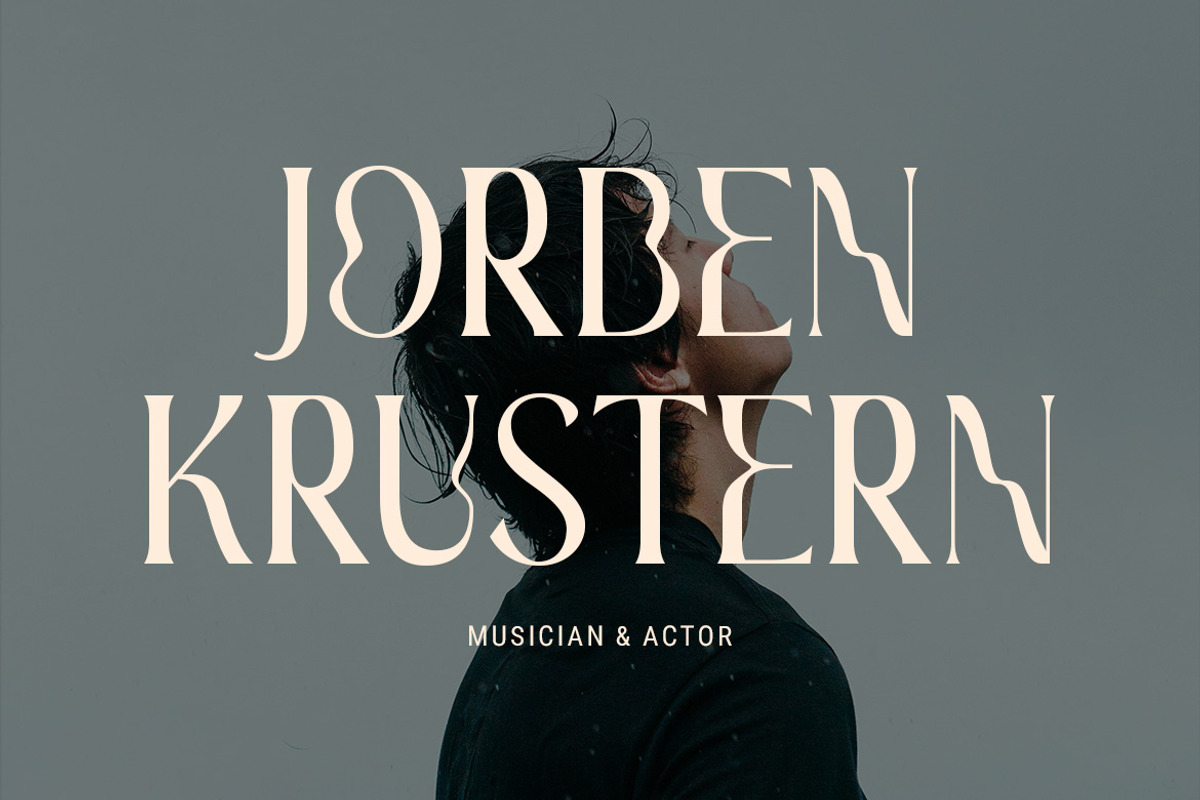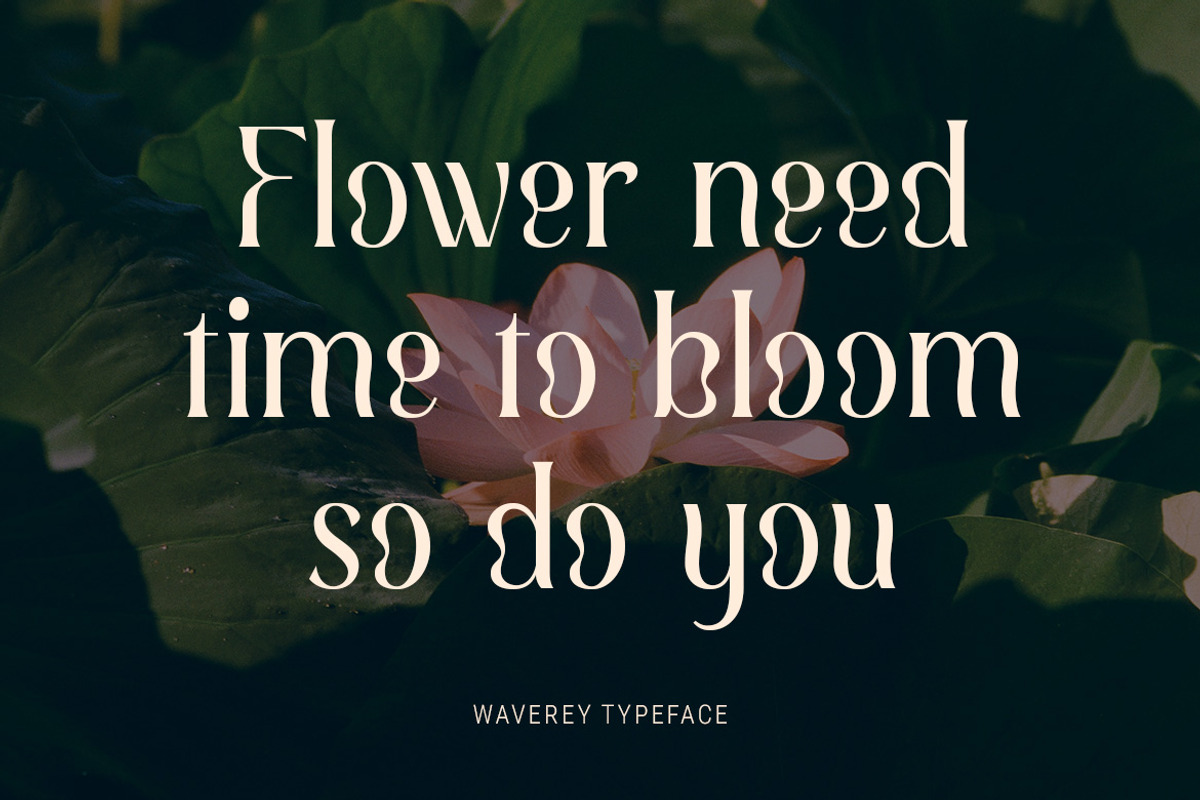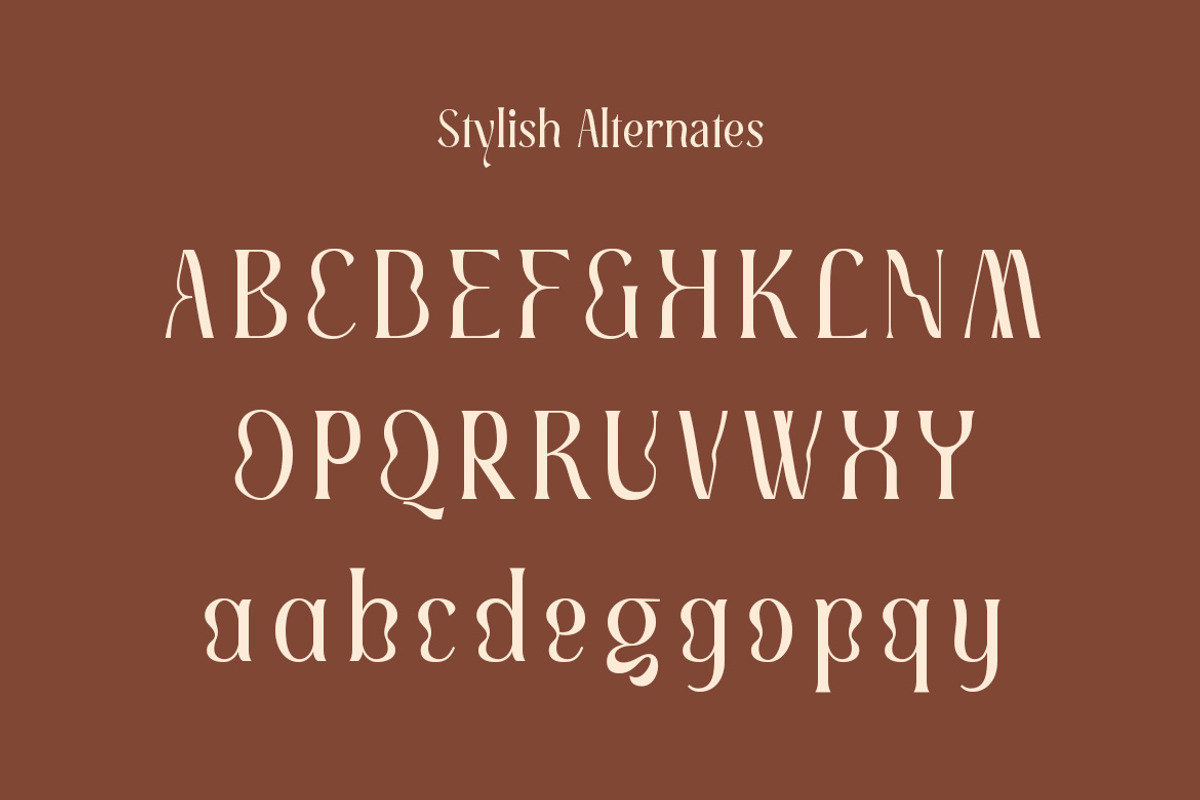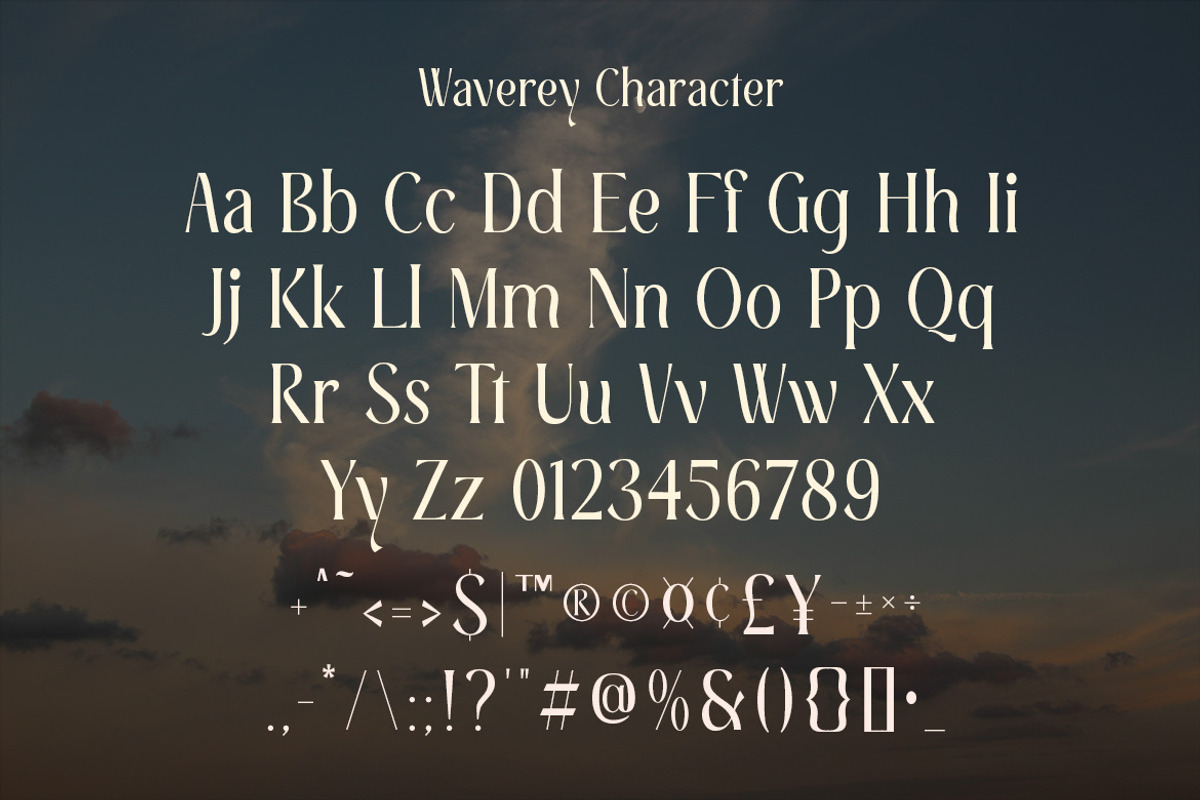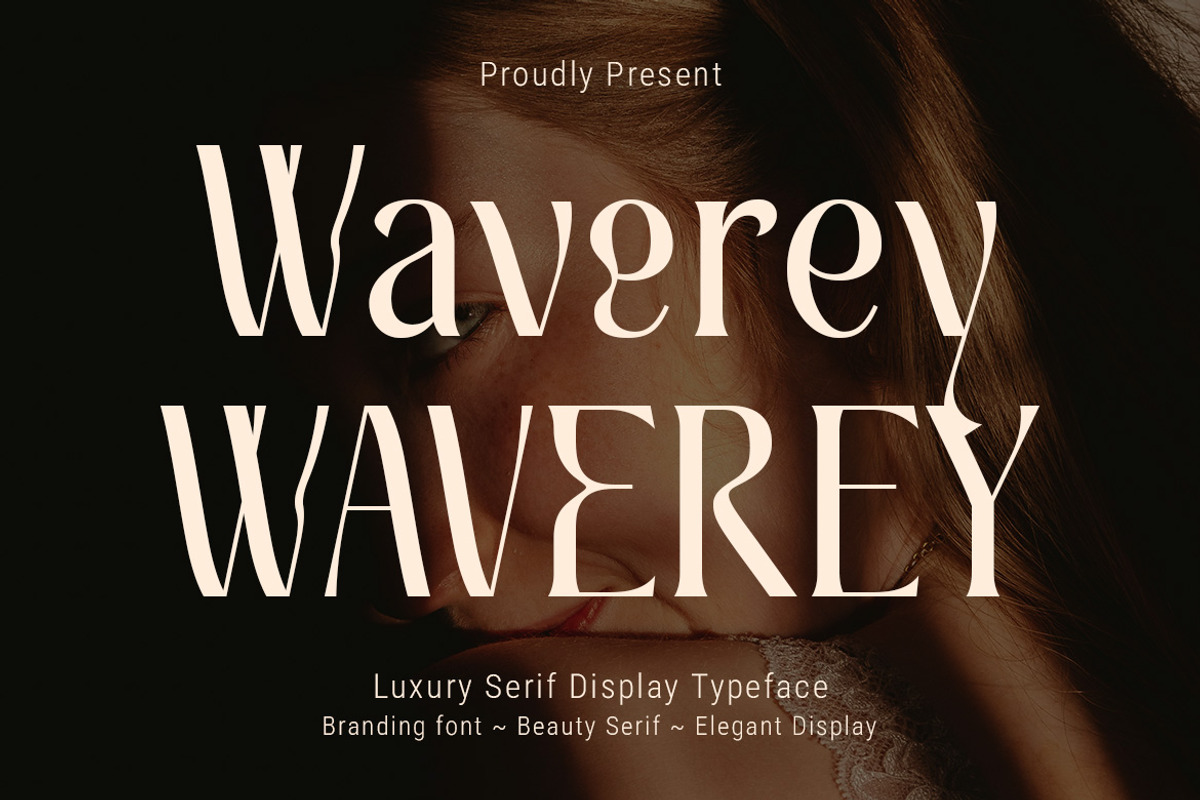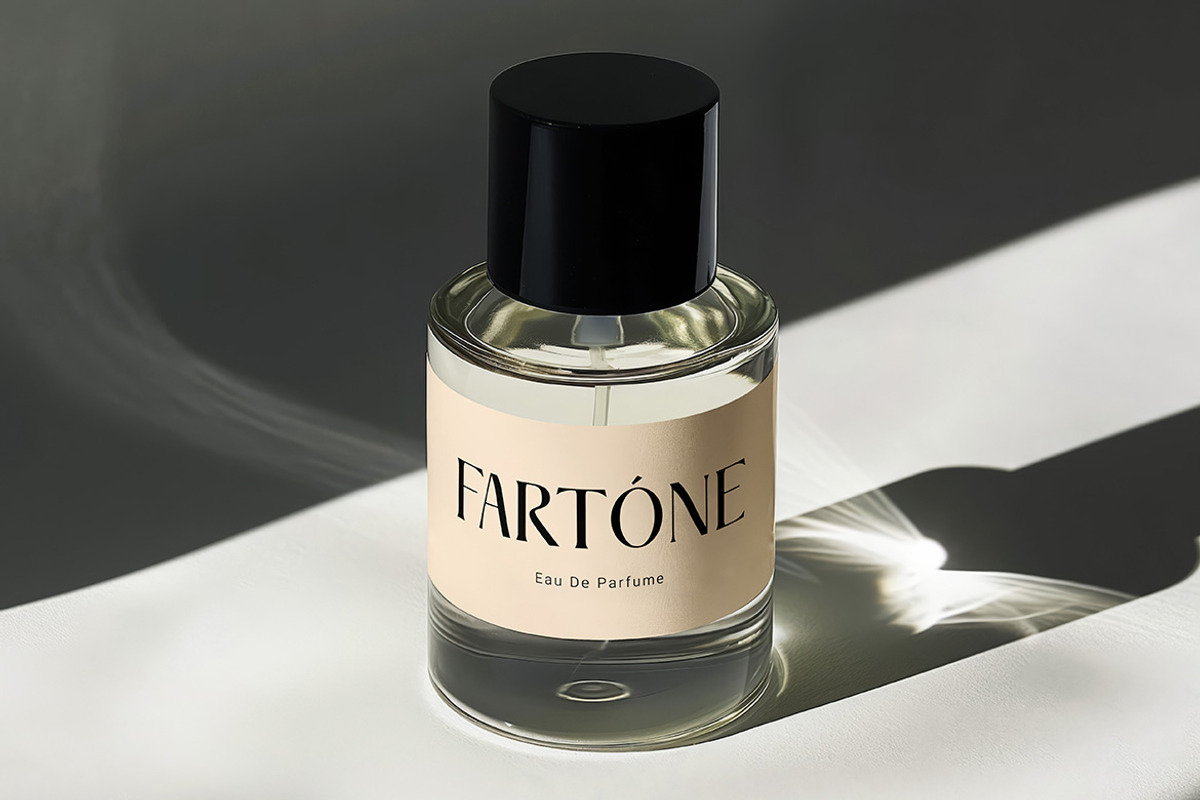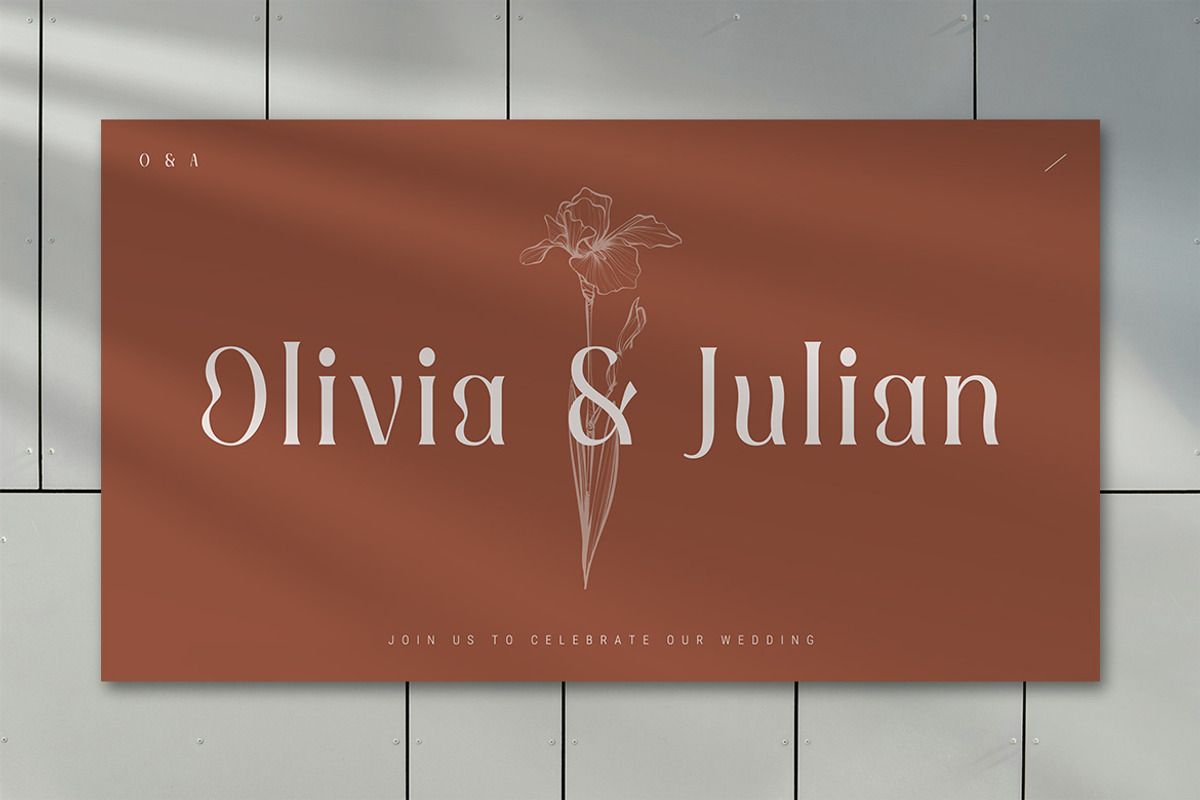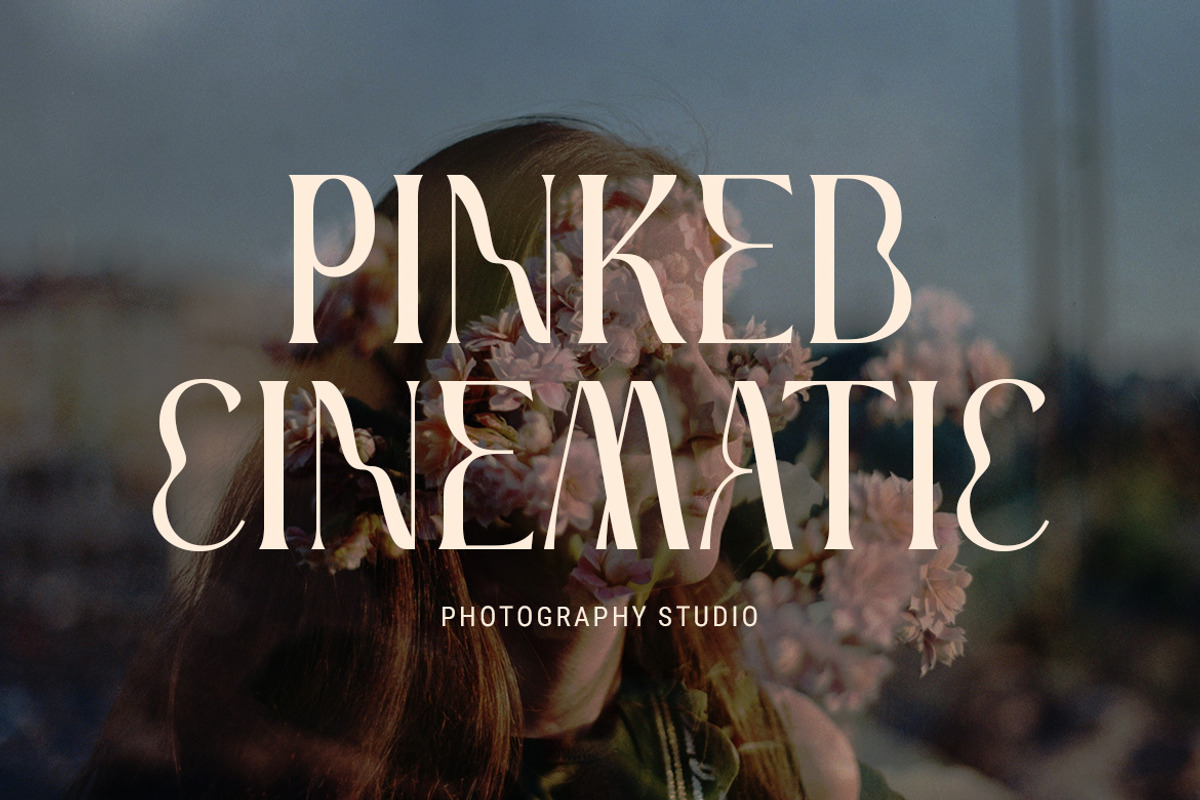
Waverey – Luxury Serif Display Font
Title: Waverey – Luxury Serif Display Typeface
Waverey is a luxury serif display typeface created to showcase elegance, sophistication, and modern beauty. With its unique letterforms and stylish curves, this font is perfect for high-end branding, fashion editorials, beauty packaging, invitations, and premium design projects. Its refined style brings a balance of contemporary charm and timeless class, making it versatile for both bold headlines and elegant logos. Waverey is designed to help your creative work stand out, leaving a lasting impression with its graceful and distinctive typographic character.
* Uppercase Letters
* Numbers & Punctuation
* Ligature & Alternate Character
* Unique Hand-Drawn Style